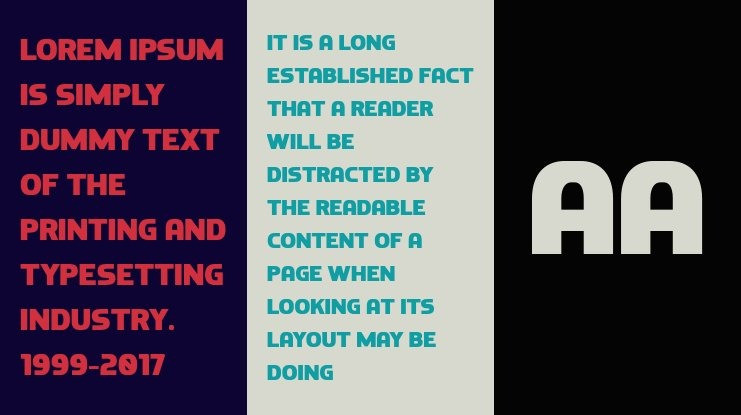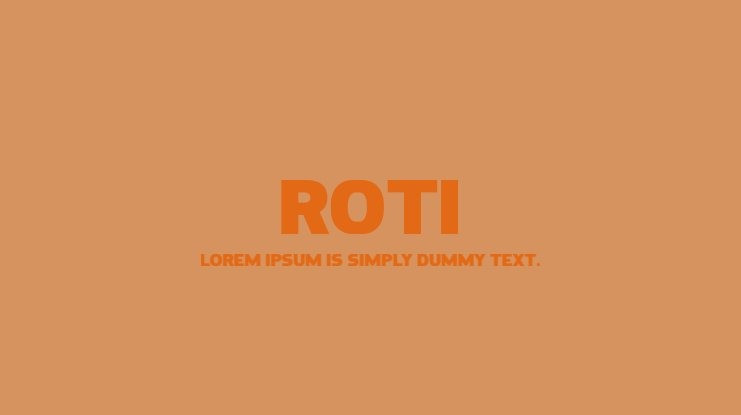
Roti Font
Looking for a unique, stylish, and fun font for your next project? Introducing Roti Sans Serif Font, a sans serif font that exudes class, chic, and elegance in every letter. This typeface is the epitome of sophistication and style, making it the perfect choice for any design project that requires a touch of luxury. Whether you’re looking to create eye-catching headlines, captivating logos, or stunning advertising materials, Roti will bring your vision to life in a bold and beautiful way.